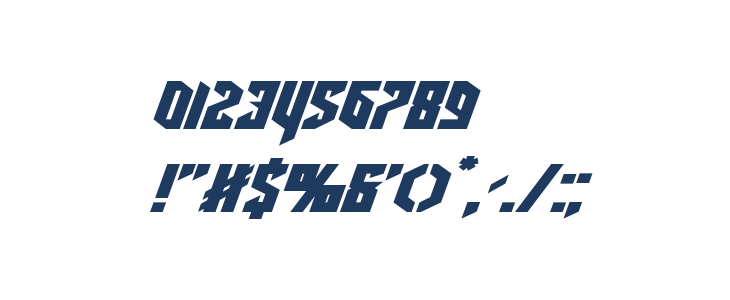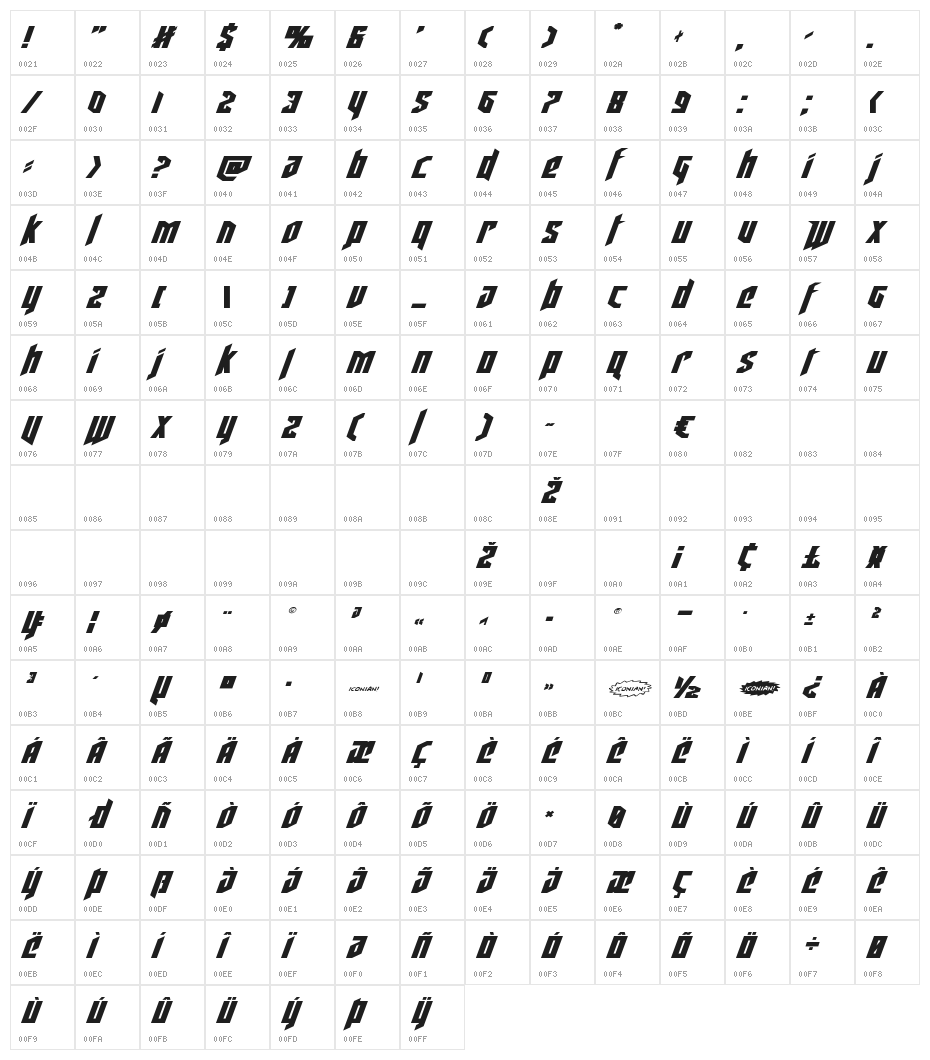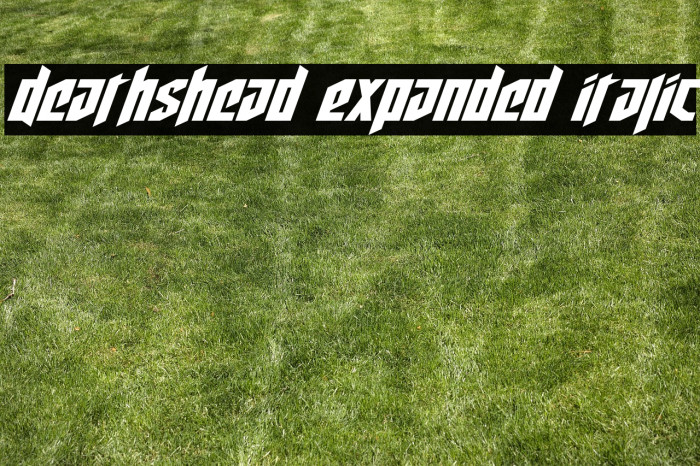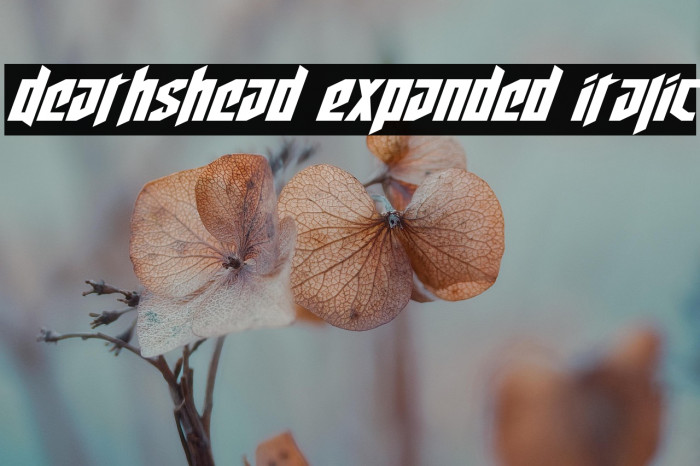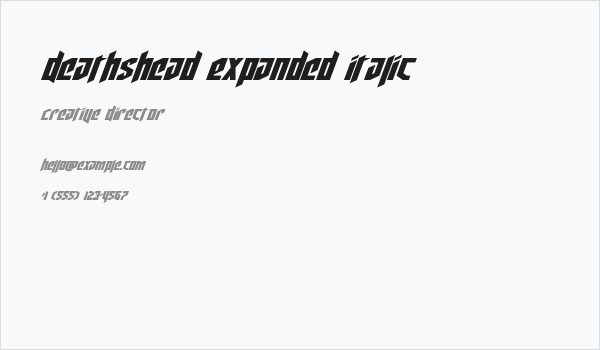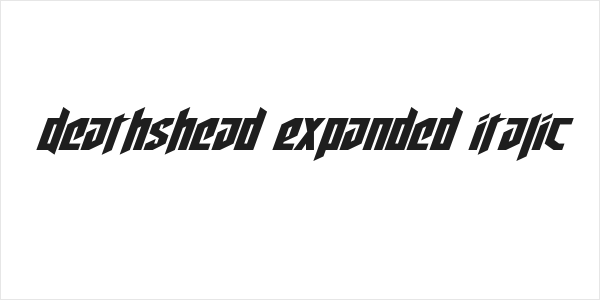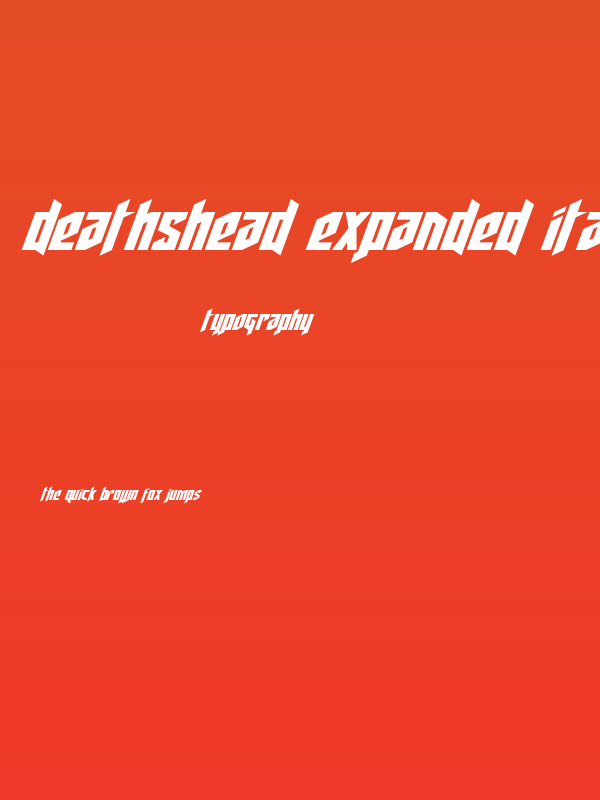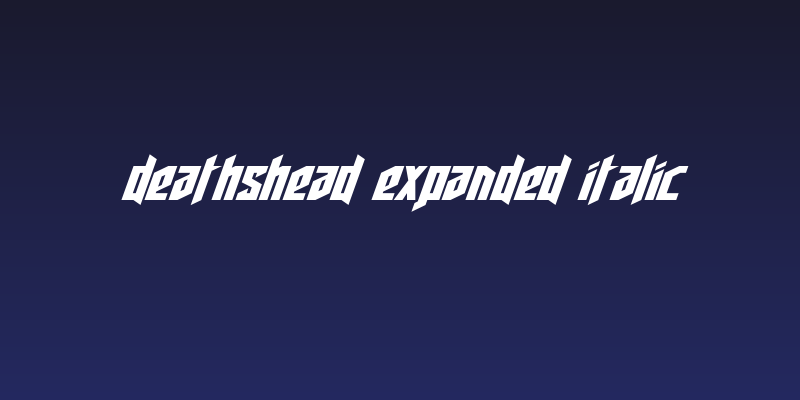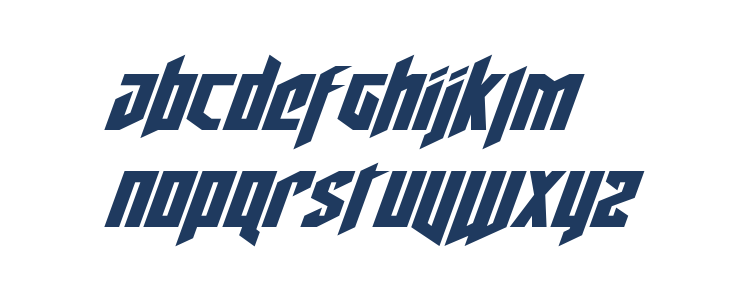
Deathshead Expanded Italic Font
Deathshead Expanded Italic Description
This font features a bold, angular design with a distinctly modern and aggressive style. The characters are sharply defined with a slanted, italicized orientation that gives a sense of motion and dynamism. The expanded width of the letters enhances its bold presence, making it ideal for impactful headlines or titles. The uppercase and lowercase letters maintain a consistent style, with the lowercase mirroring the uppercase in form and structure. Numbers and special characters are equally bold and angular, ensuring uniformity across all text elements. The font's unique style makes it stand out, suitable for projects that require a strong visual impact.
| Proposed Projects | Ideal for use in posters, video game graphics, branding for edgy products, or any project needing a strong, dynamic visual impact. |